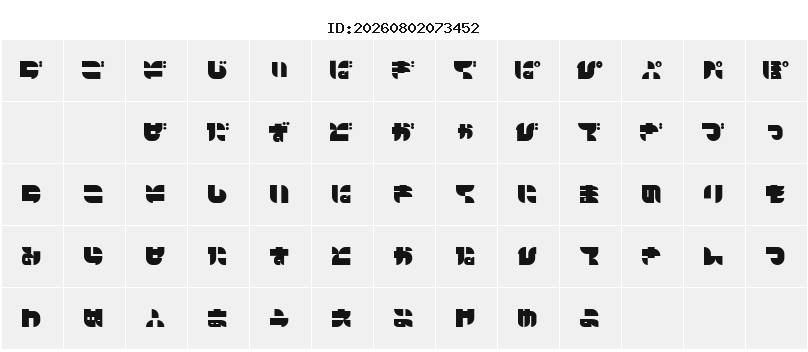
• Font Name: MD Airline HR
MD Airline HR.ttf is a modern, elegant sans-serif font designed for ultimate readability and visual harmony. Perfect for branding, headlines, web design, and print materials.